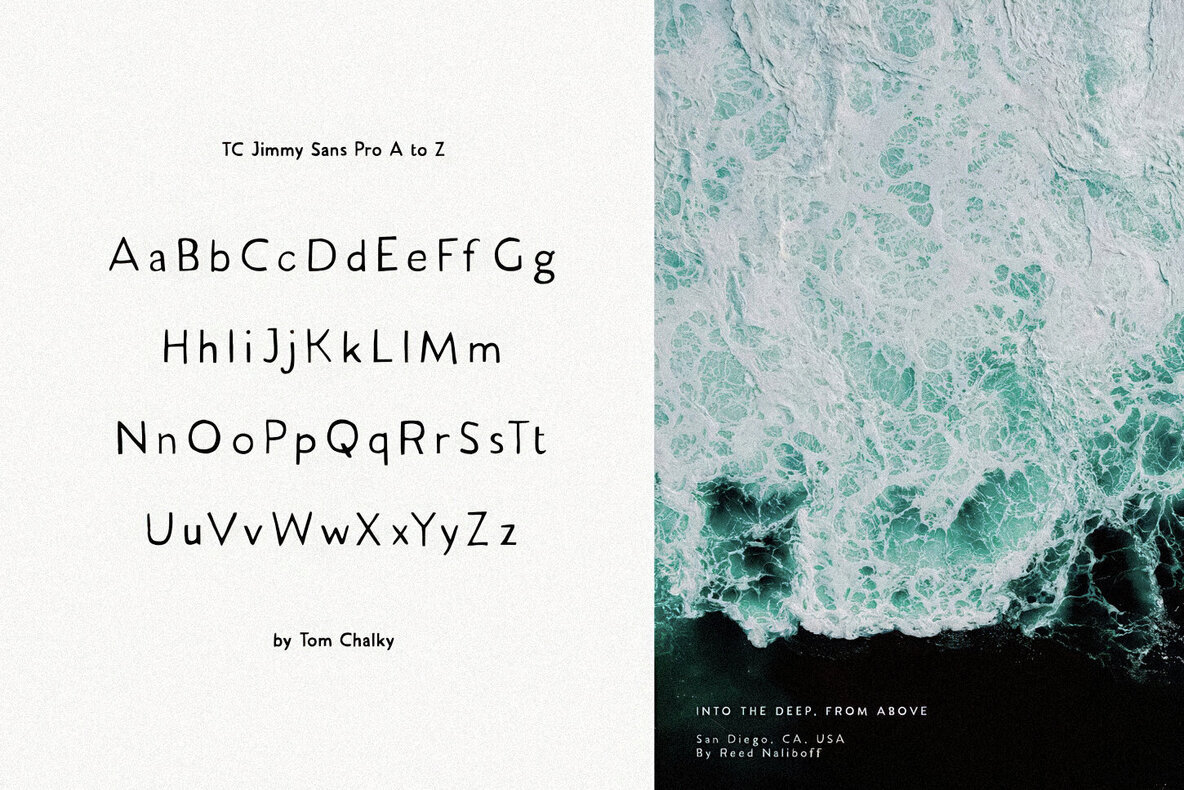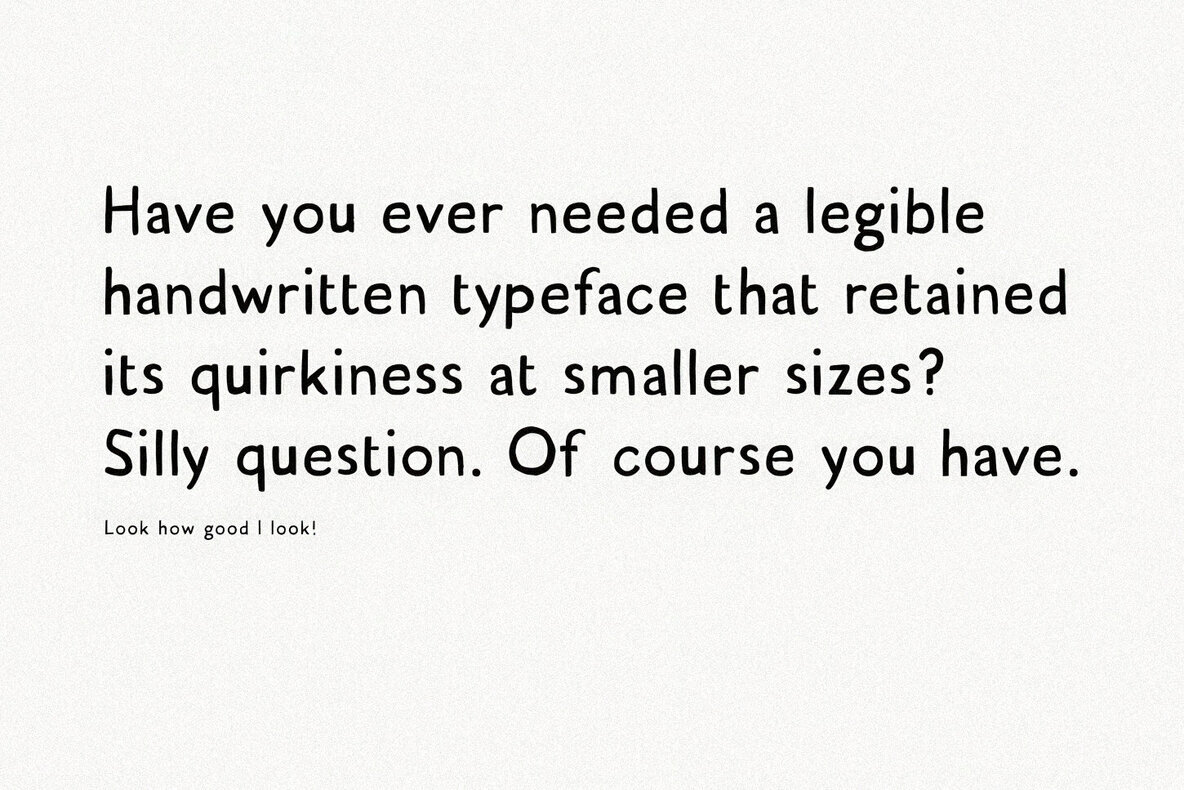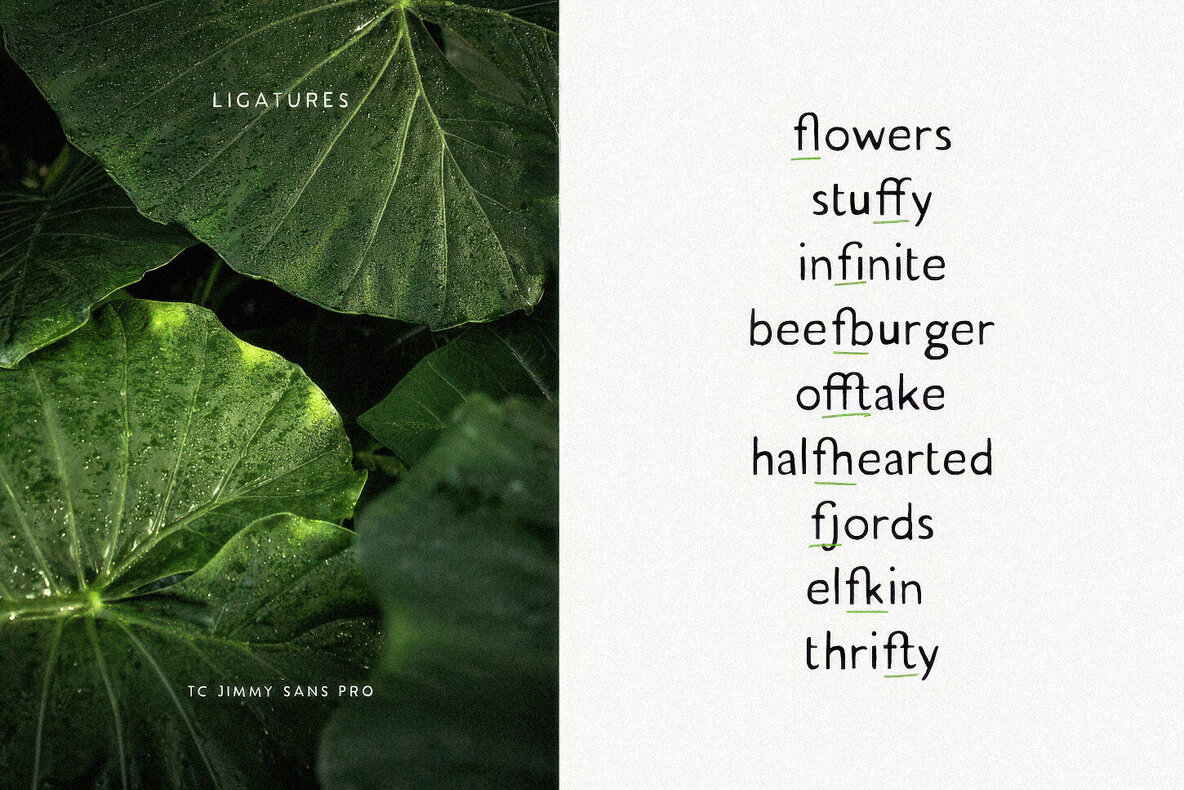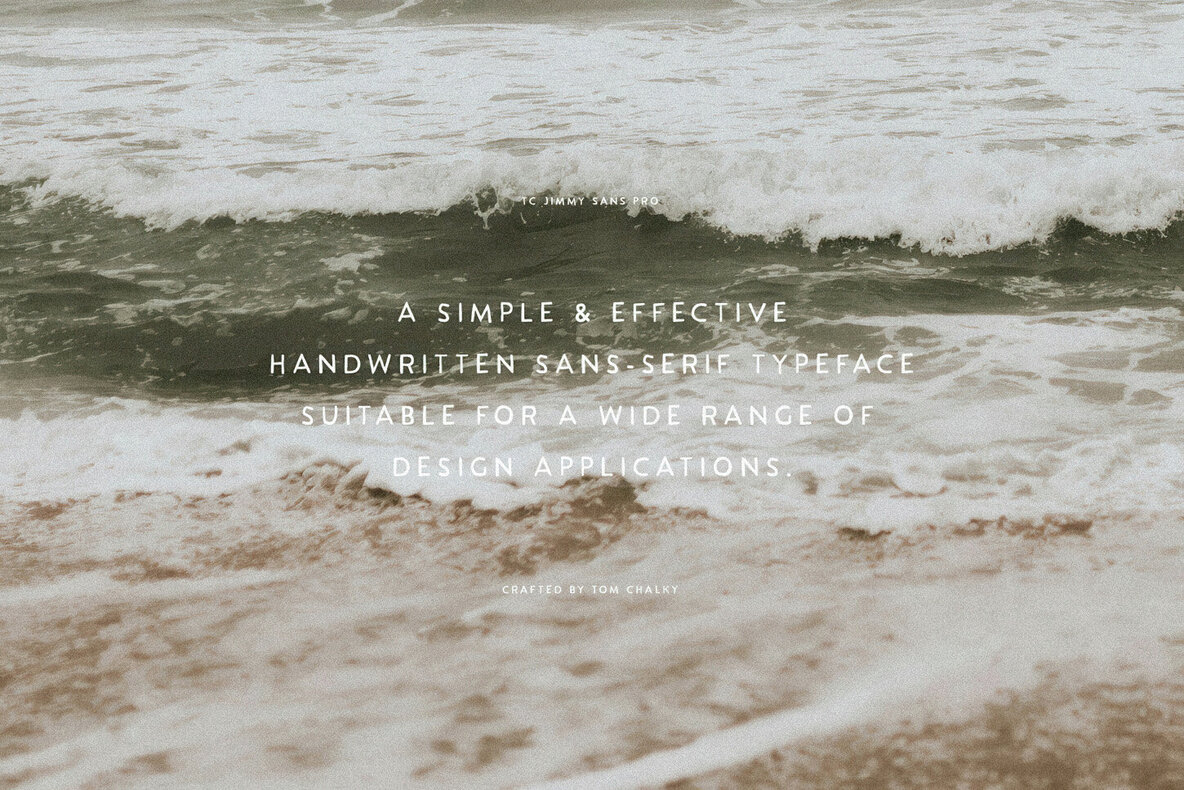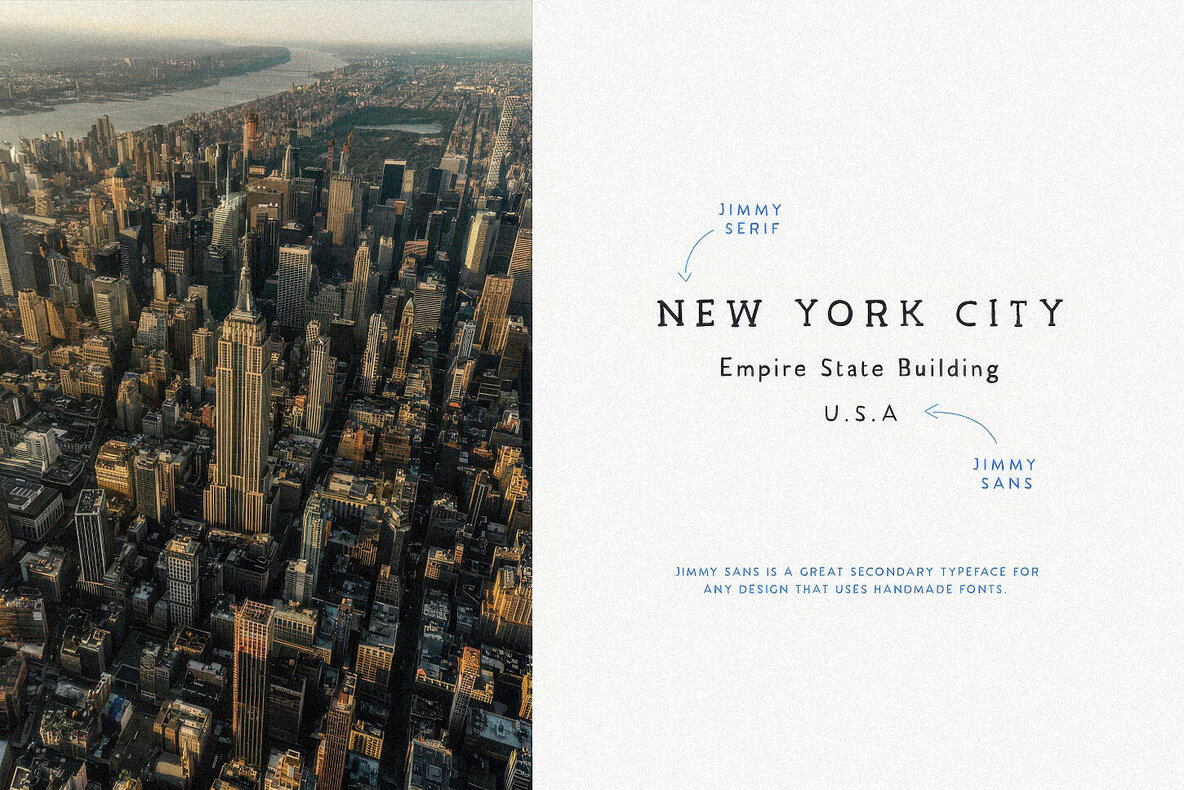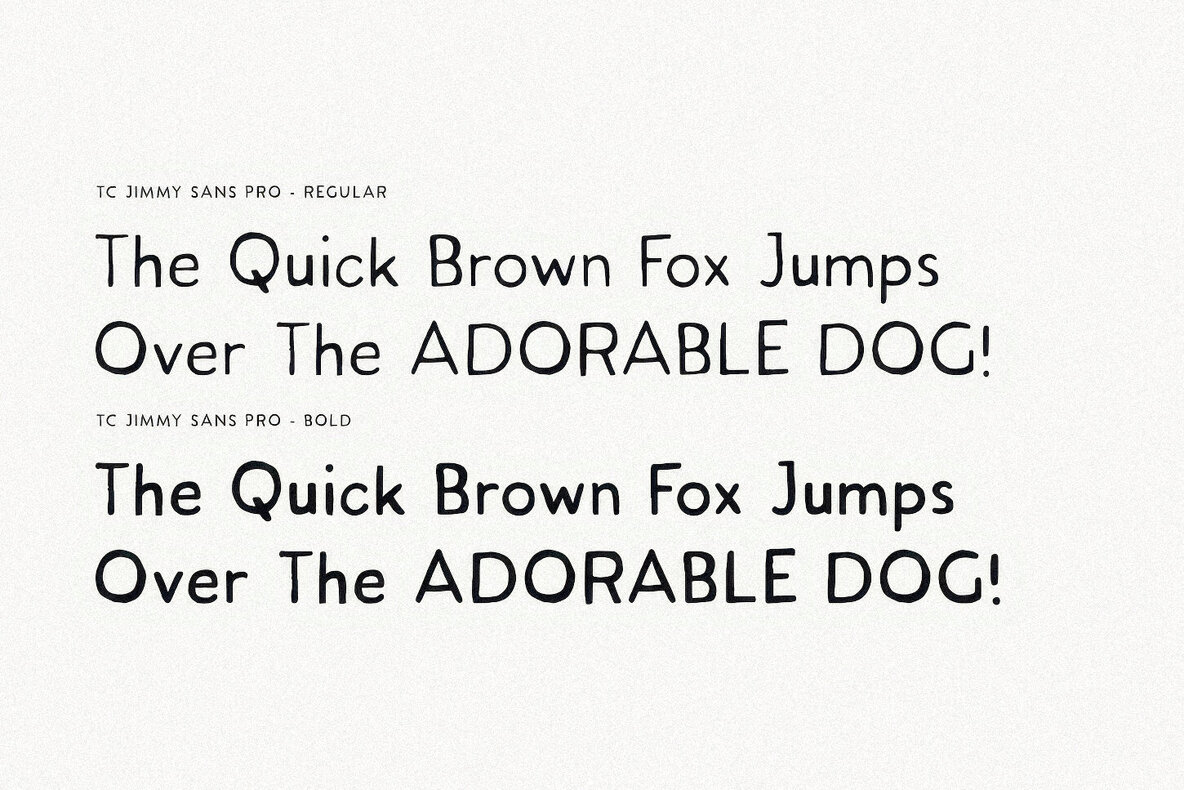
TC Jimmy Sans Pro Font
We are proud to introduce TC Jimmy Pro Sans, the perfect complementary sans-serif for your growing handcrafted font collection. This handwritten typeface is designed specifically to look great in smaller sizes, a tough task for most handwritten fonts on the market. Designed out of Necessity—As a designer of handmade fonts, I needed a sans-serif that retained that desirable handwritten look at smaller sizes to use within presentation images (like the ones you see above). A font like this would help massively when adding a variety of typography to the designs I often find myself working with. (I imagine the same for you!) After originally launching in 2014, Jimmy Sans has become one of my most popular fonts. With this PRO release, lowercase glyphs and extra multilingual support have been added.